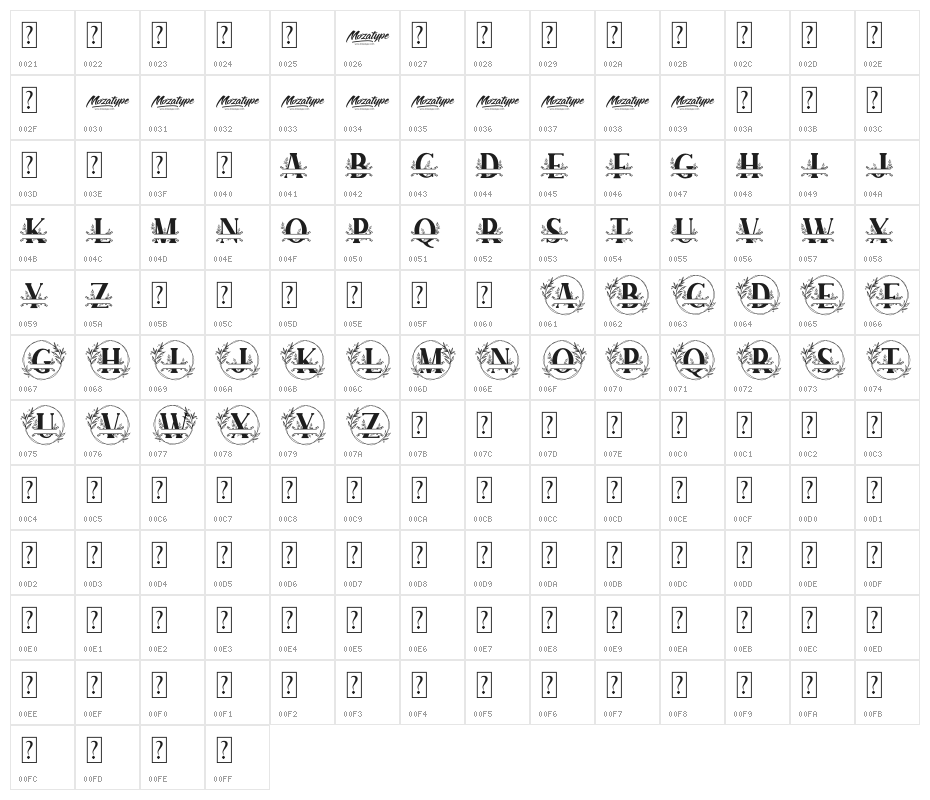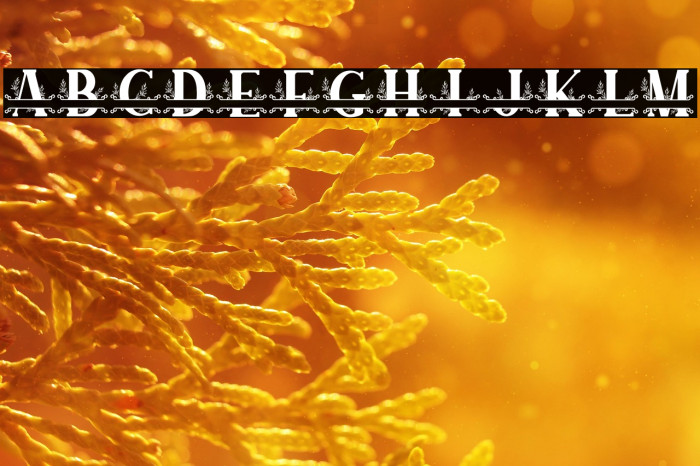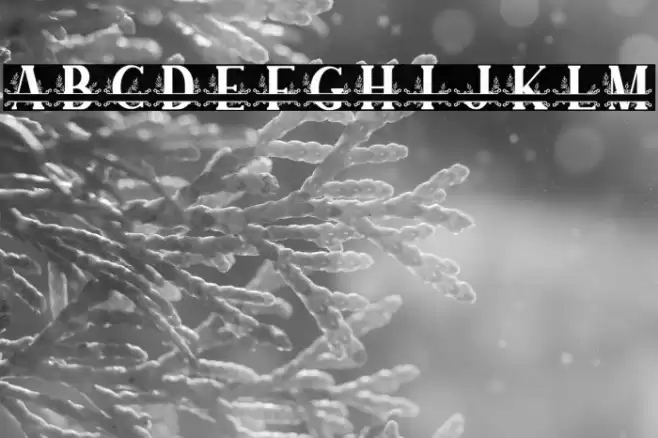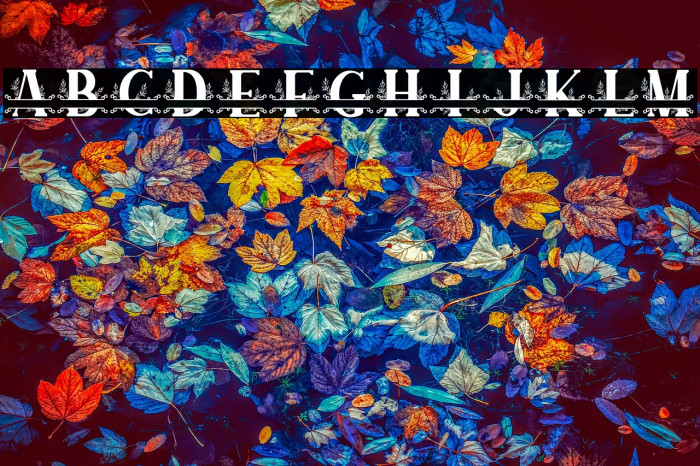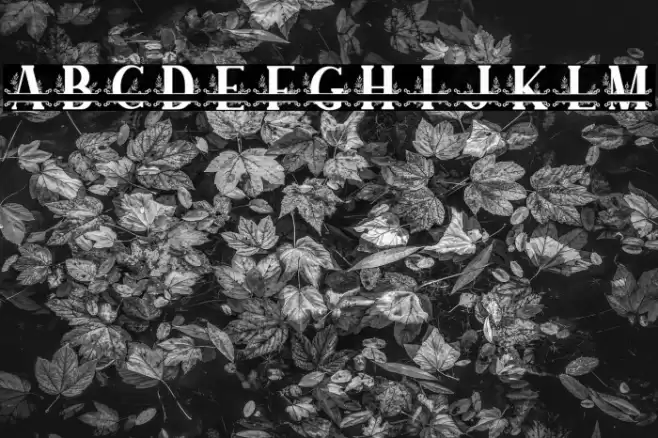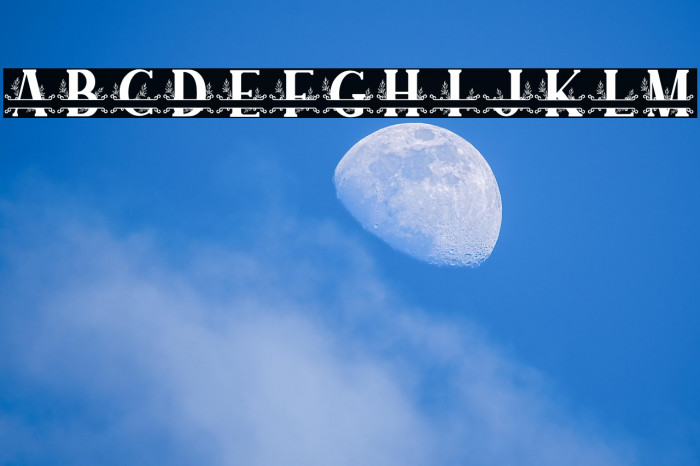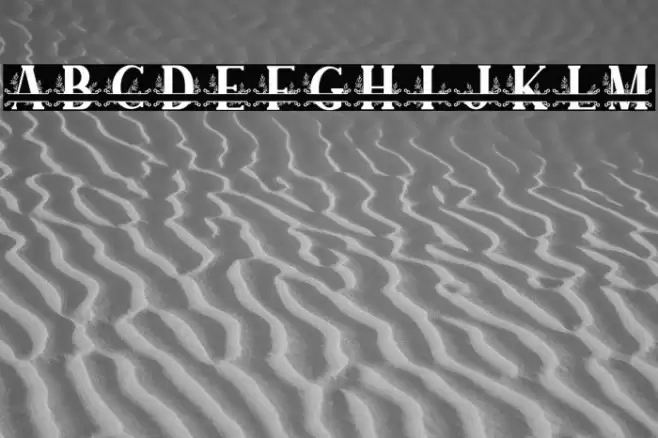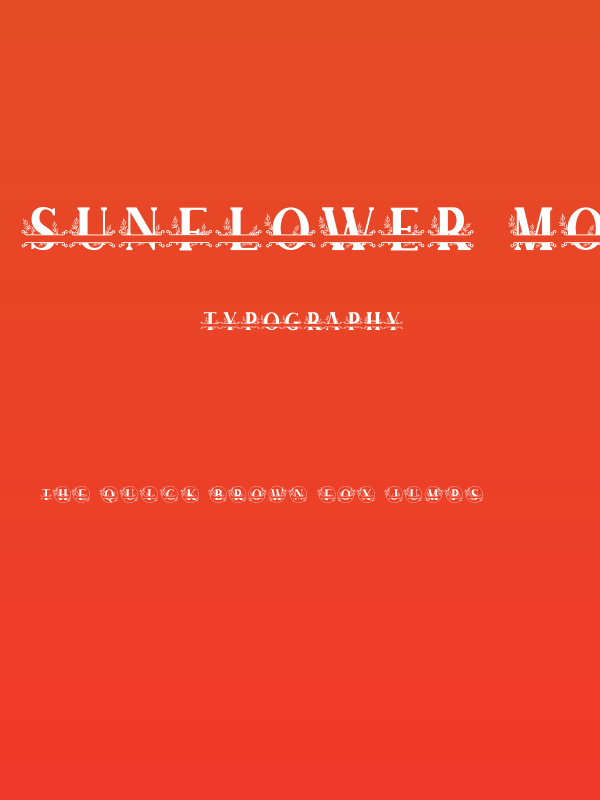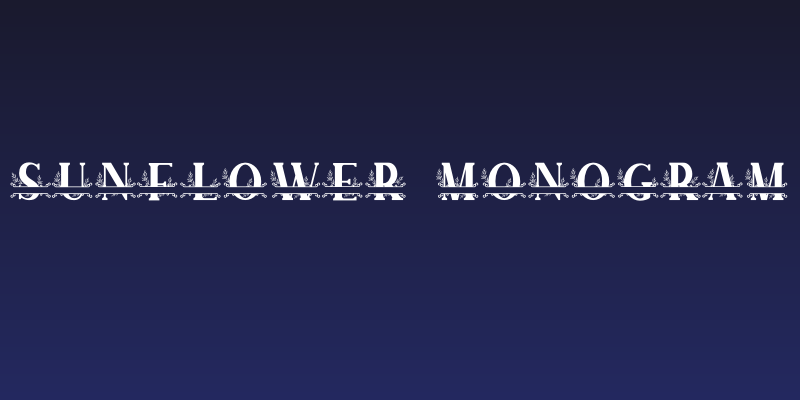
SUNFLOWER MONOGRAM Font
SUNFLOWER MONOGRAM Description
This decorative font features uppercase letters adorned with intricate floral elements, creating a monogram style. Each character is embellished with sunflower motifs, giving it an elegant and artistic appearance. The letters are bold and have a classic serif structure, with additional ornamental details that enhance their visual appeal. The font is designed to be eye-catching and sophisticated, making it ideal for projects that require a touch of elegance and personalization.
| Proposed Projects | Ideal for wedding invitations, personalized stationery, branding, and decorative monograms. |